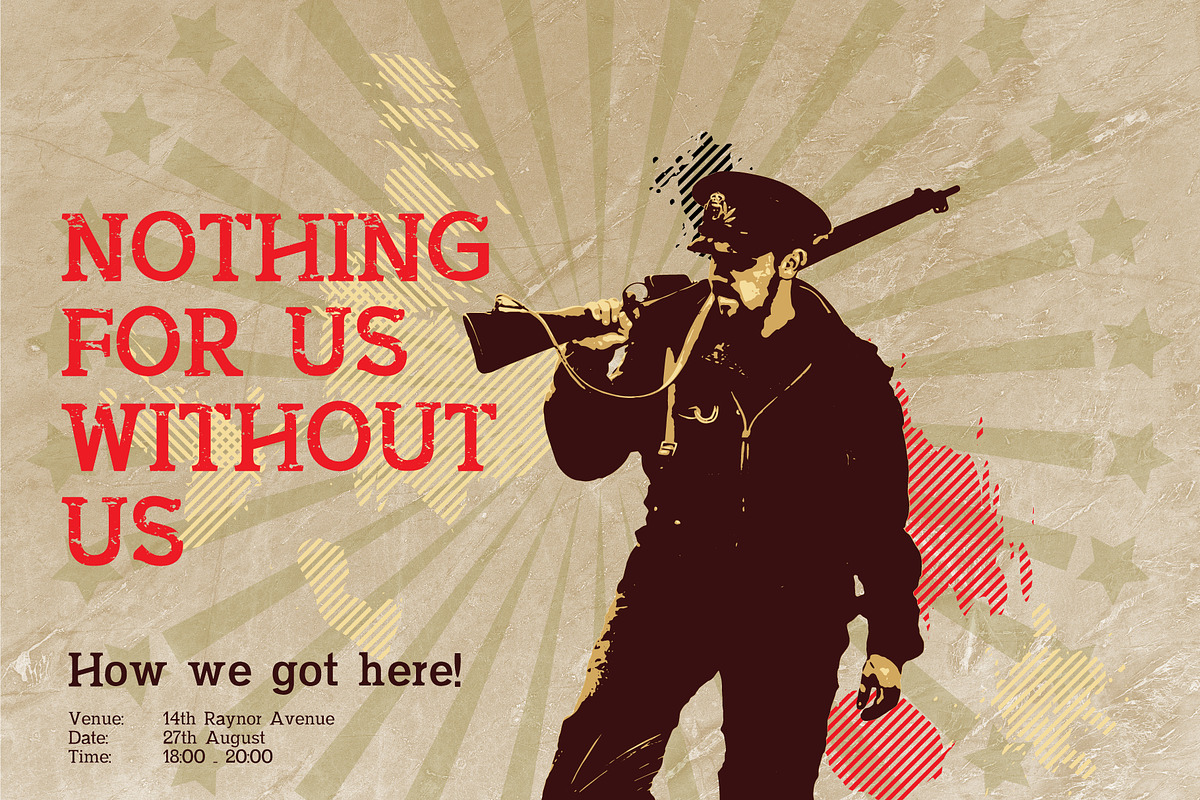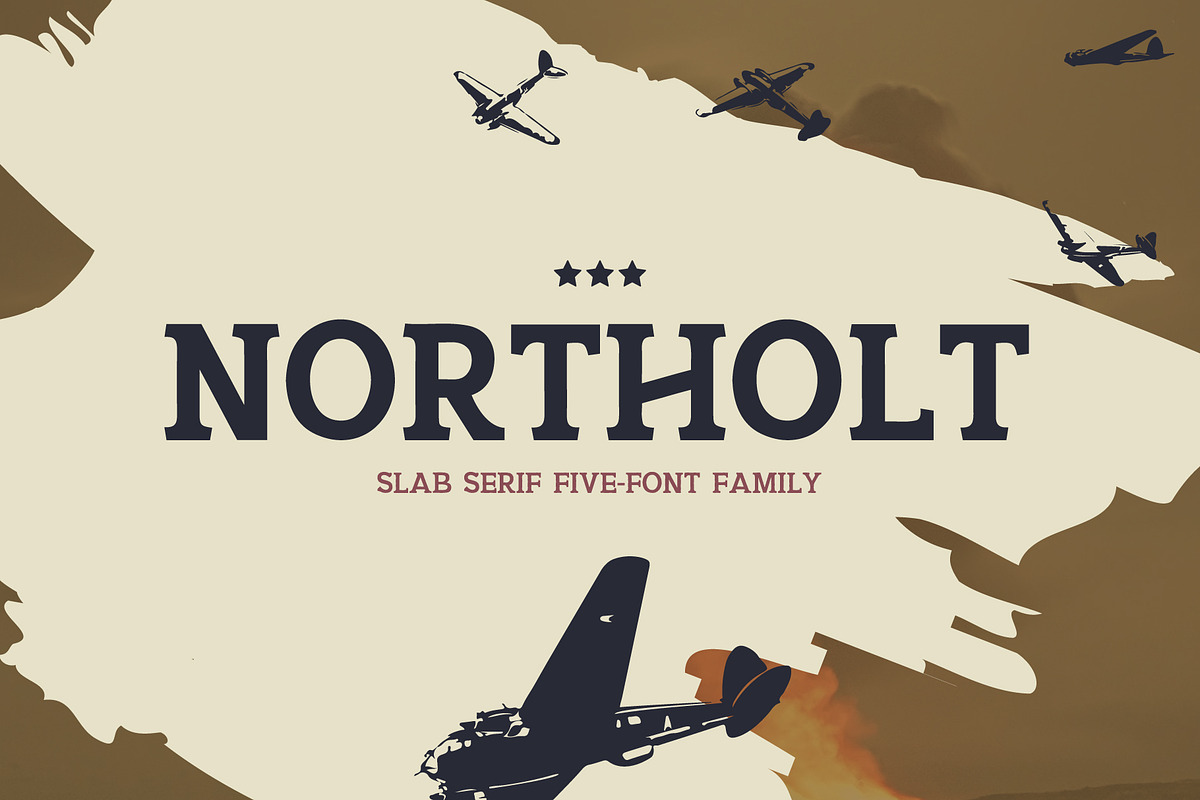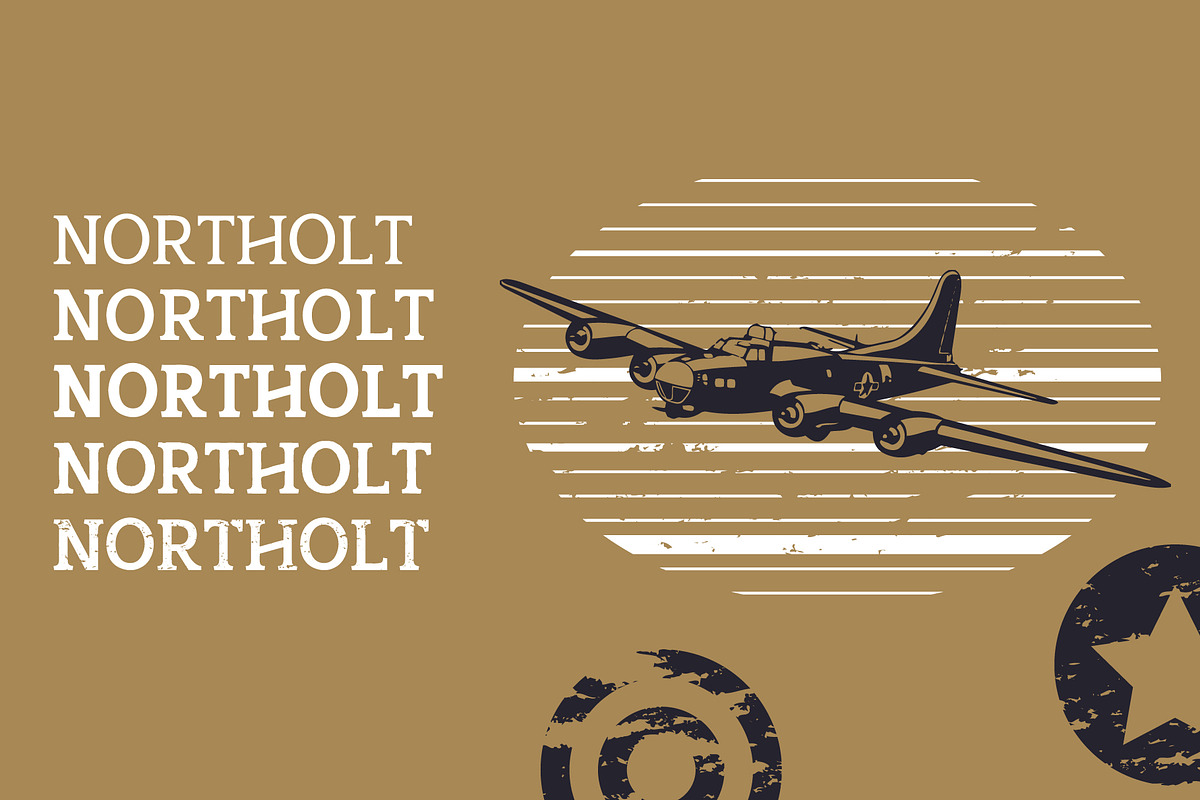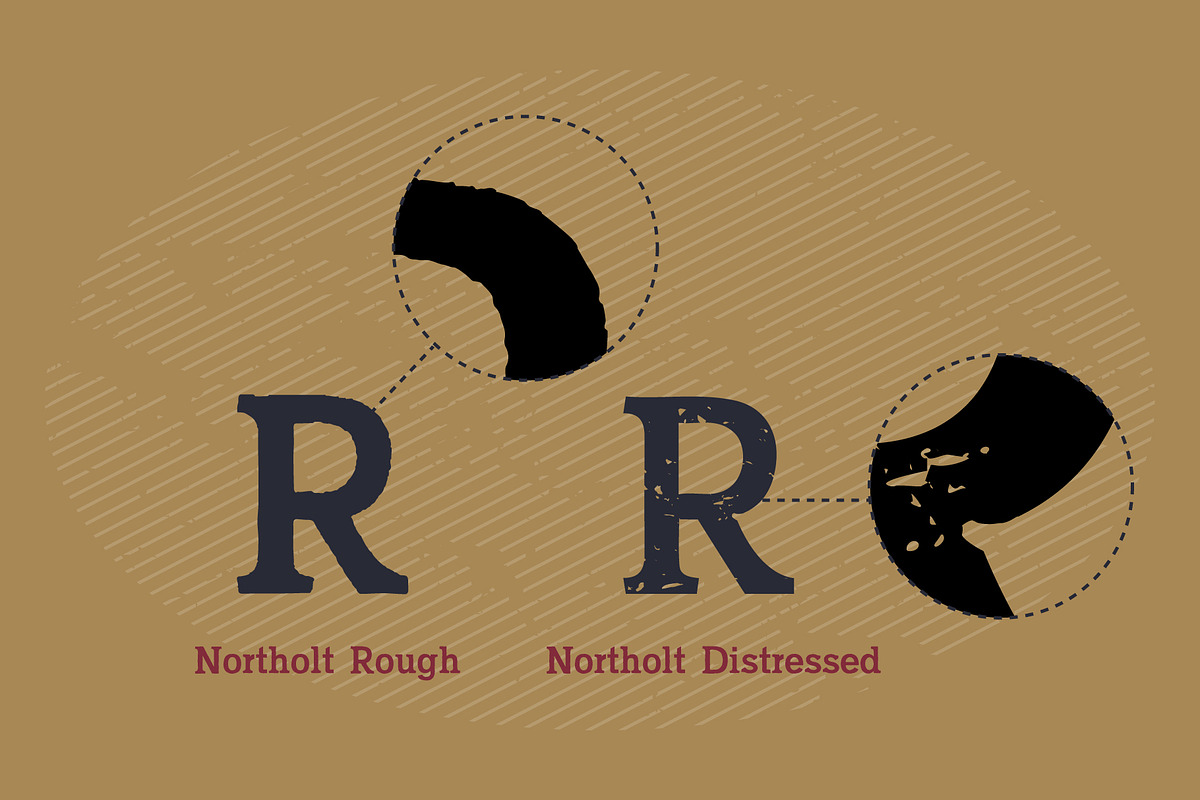
Northolt - A Slab Serif Font Family
This font is named after the town I spent quite a number of years during my childhood. This font family has been inspired by the town's military history especially the famous airfield. The font comes with a light, regular, bold, distressed and rough versions. This makes it versatile for use in many different project types. I've also included international character support so that no one is left out.
- The font comes with a light, regular, bold, distressed and rough versions.
- Northolt Light
- Northolt Regular
- Northolt Bold
- Northolt Distress
- Northolt Rough